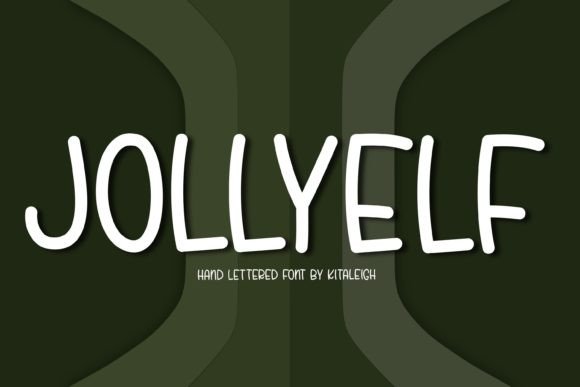
Are you in search of a font that can elevate your design projects to the next level? Look no further than Jollyelf Font by Kitaleigh LLC! This sans serif font is the perfect choice for anyone looking for a modern and exclusive typeface that features classic letterforms.
Jollyelf is the best font for all caps, making it ideal for creating eye-catching headlines, titles, and logos. Its versatility and timeless elegance make it a must-have for designers and creatives of all levels.
This font is more than just a tool for your design projects, it's a statement piece that adds a special touch to anything it's paired with. Its unique and creative style is perfect for capturing attention and conveying emotion, whether you're designing a website, a print ad, or a social media post.
With Jollyelf, you have endless opportunities to express yourself and bring your ideas to life. Its clean lines and subtle curves give it a professional and polished look that's sure to impress your audience.